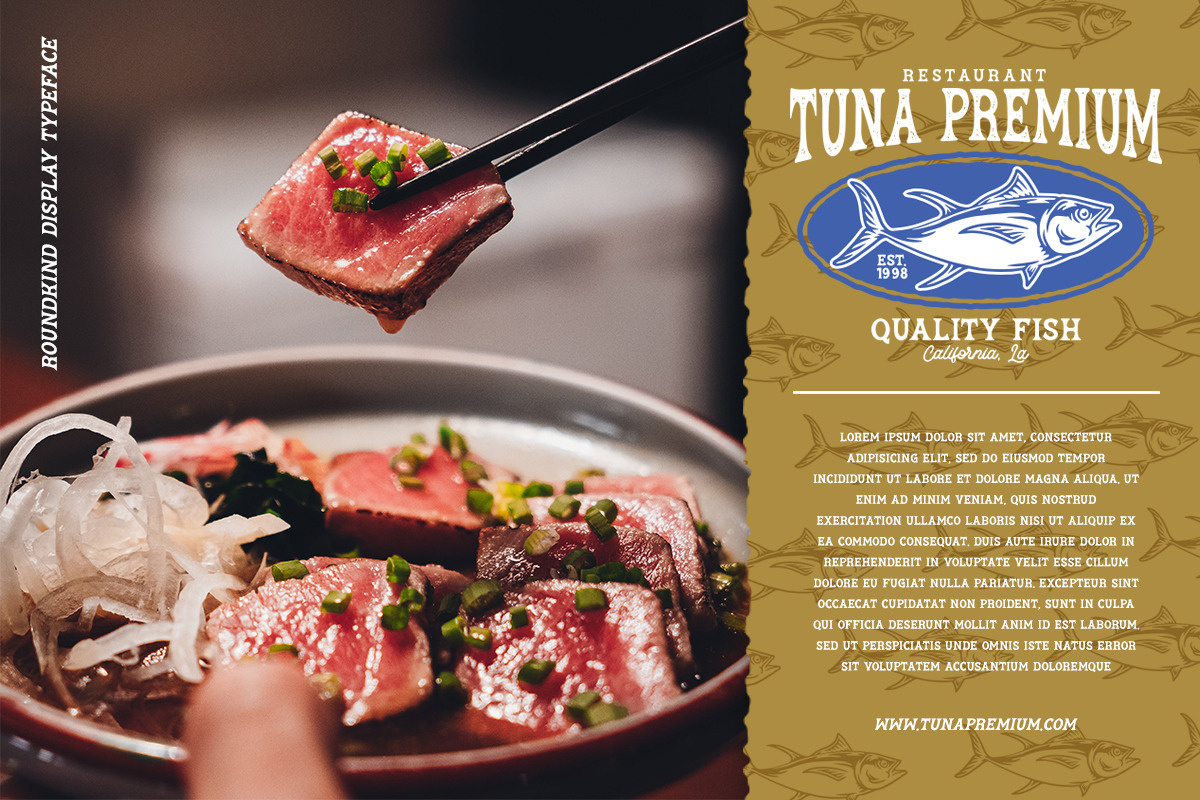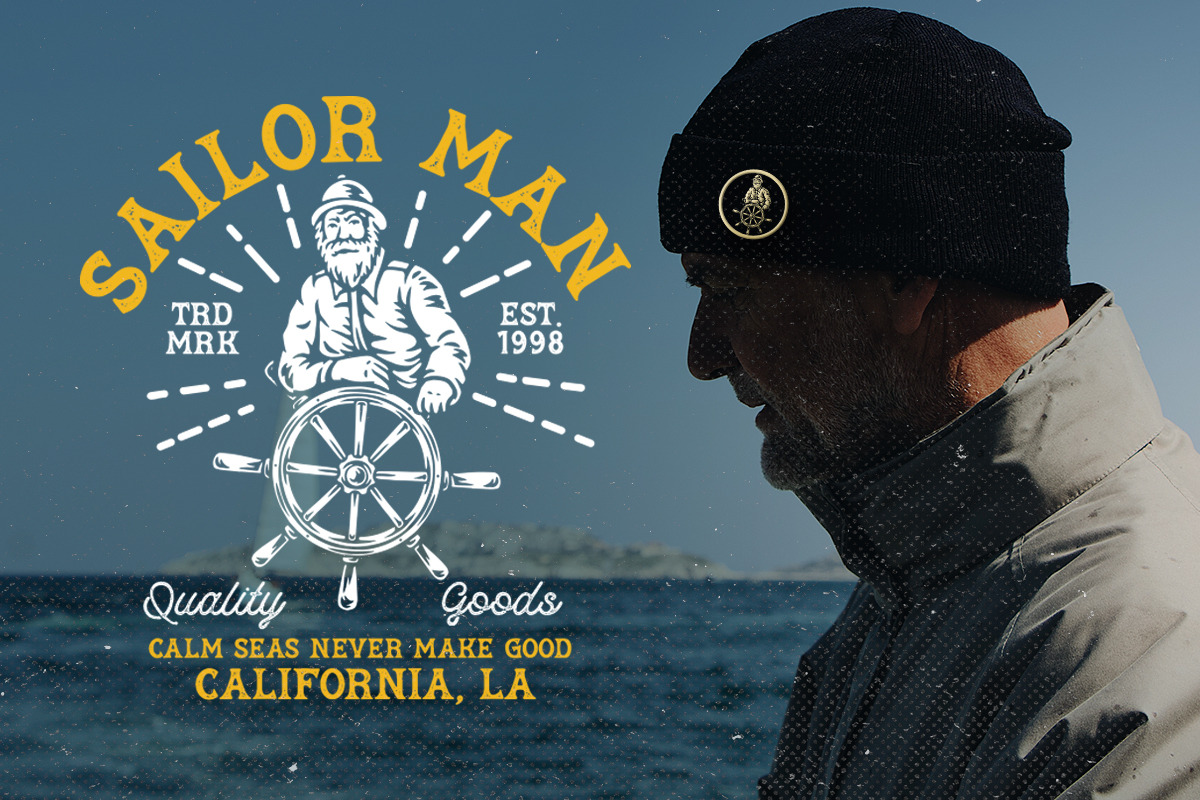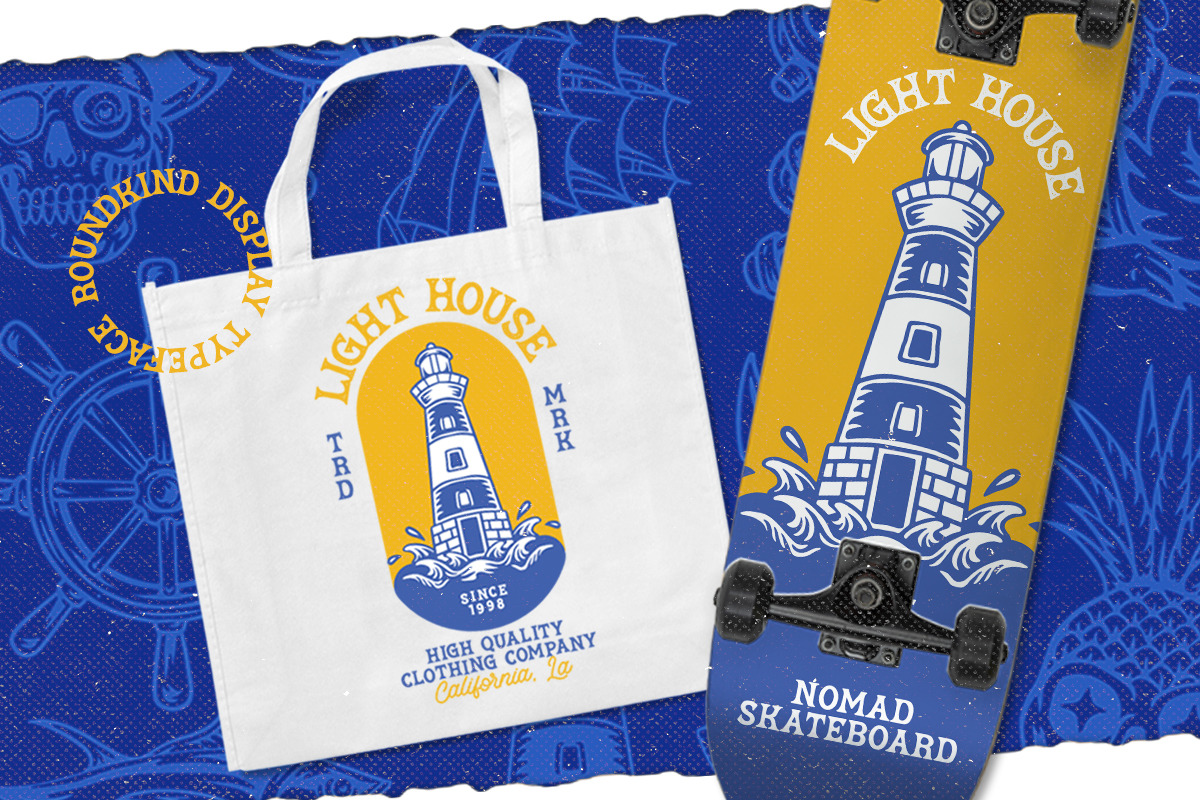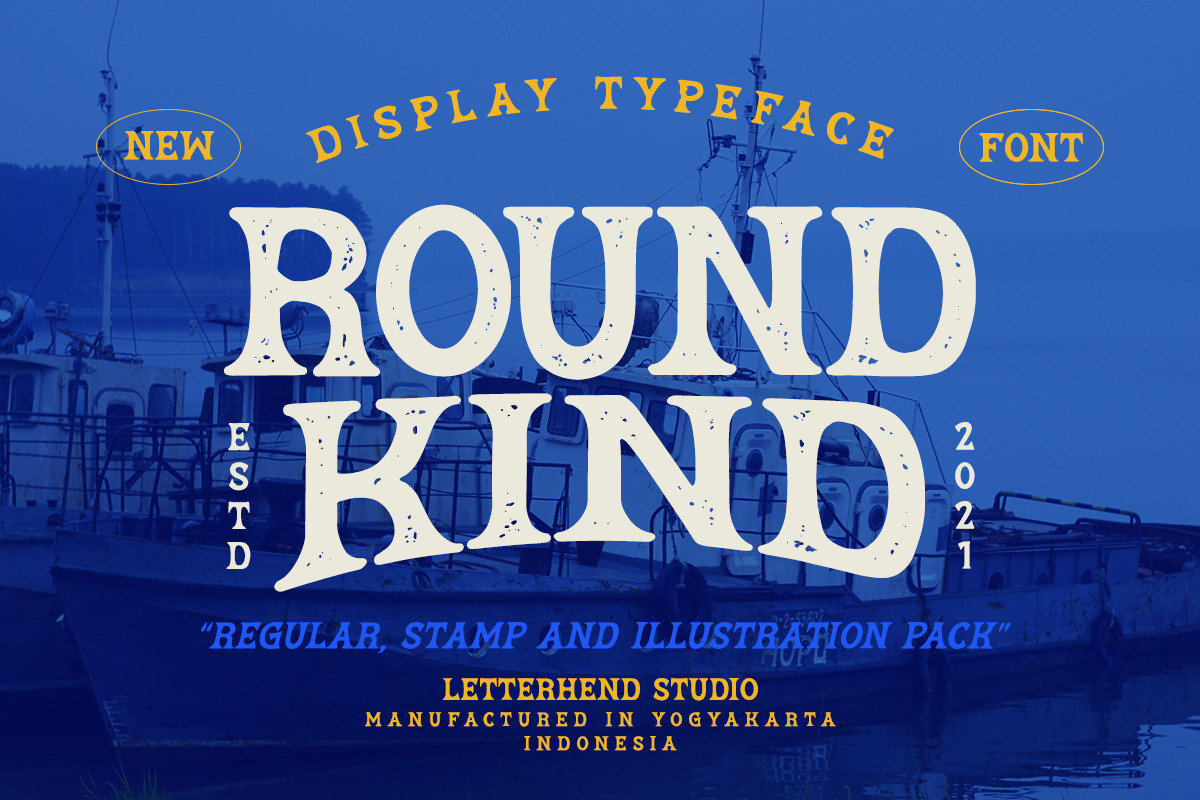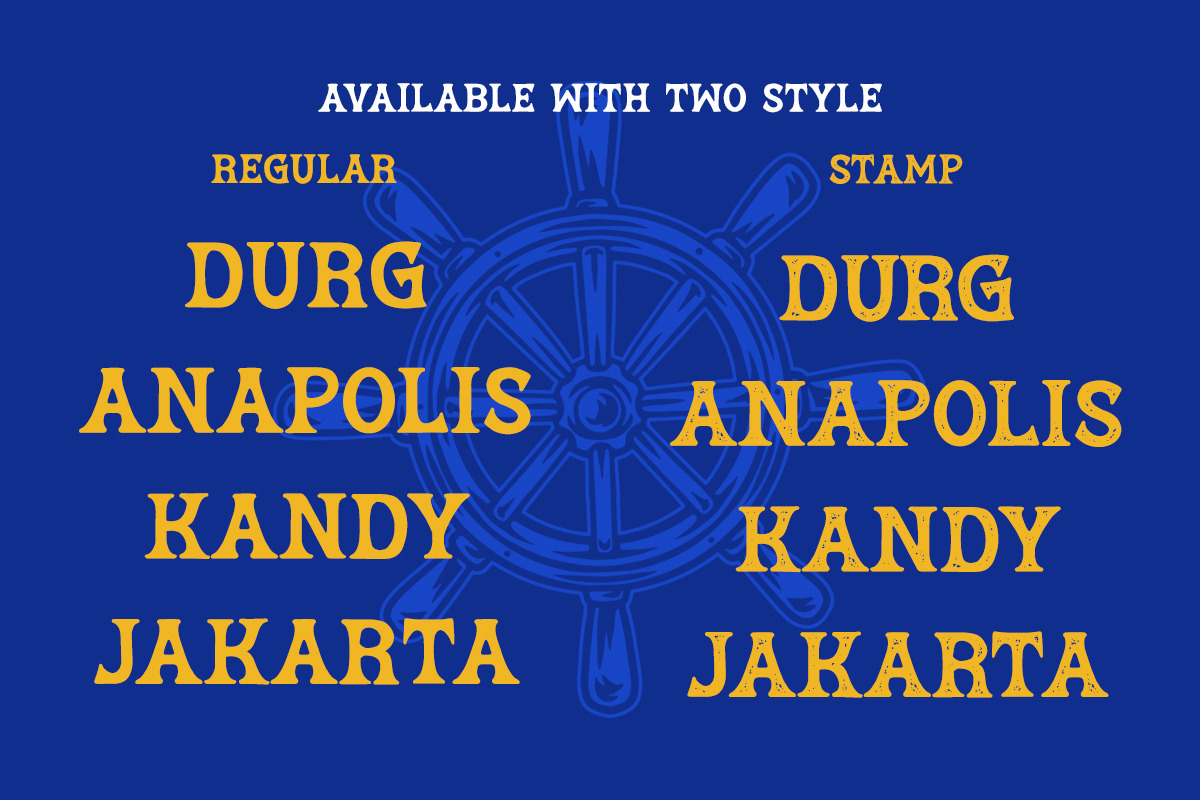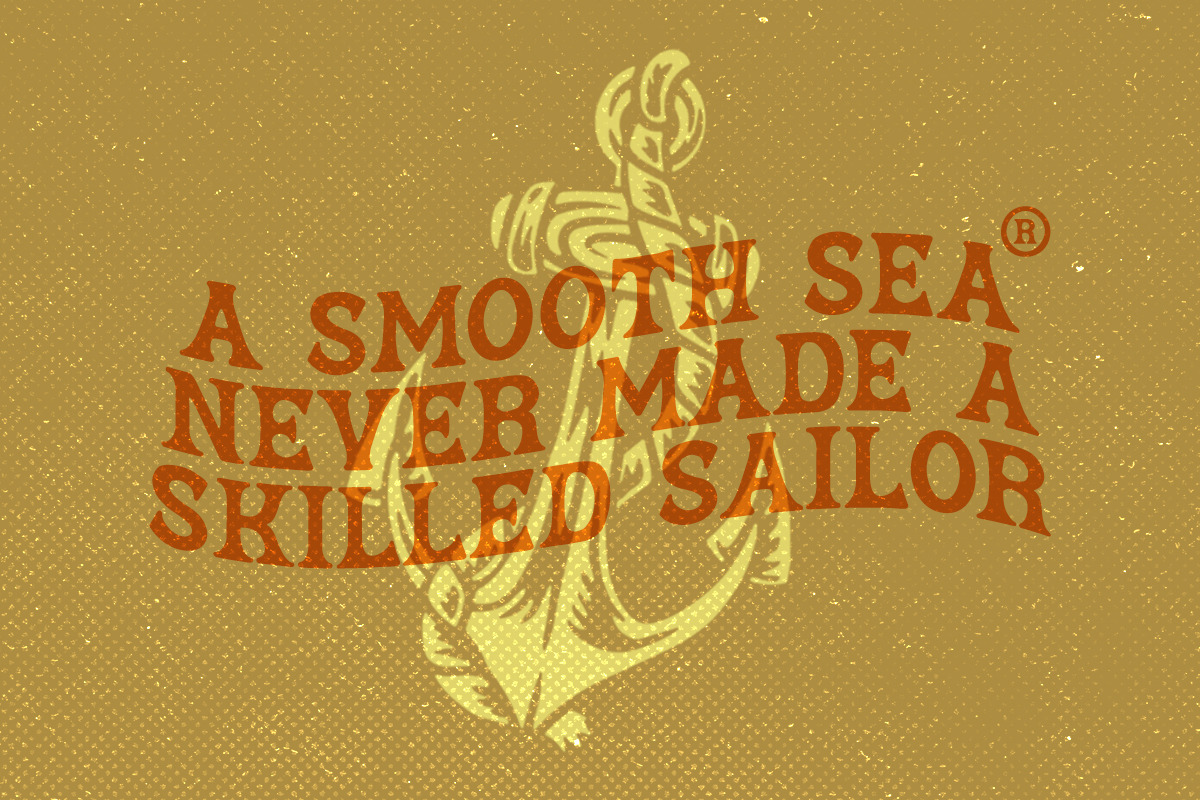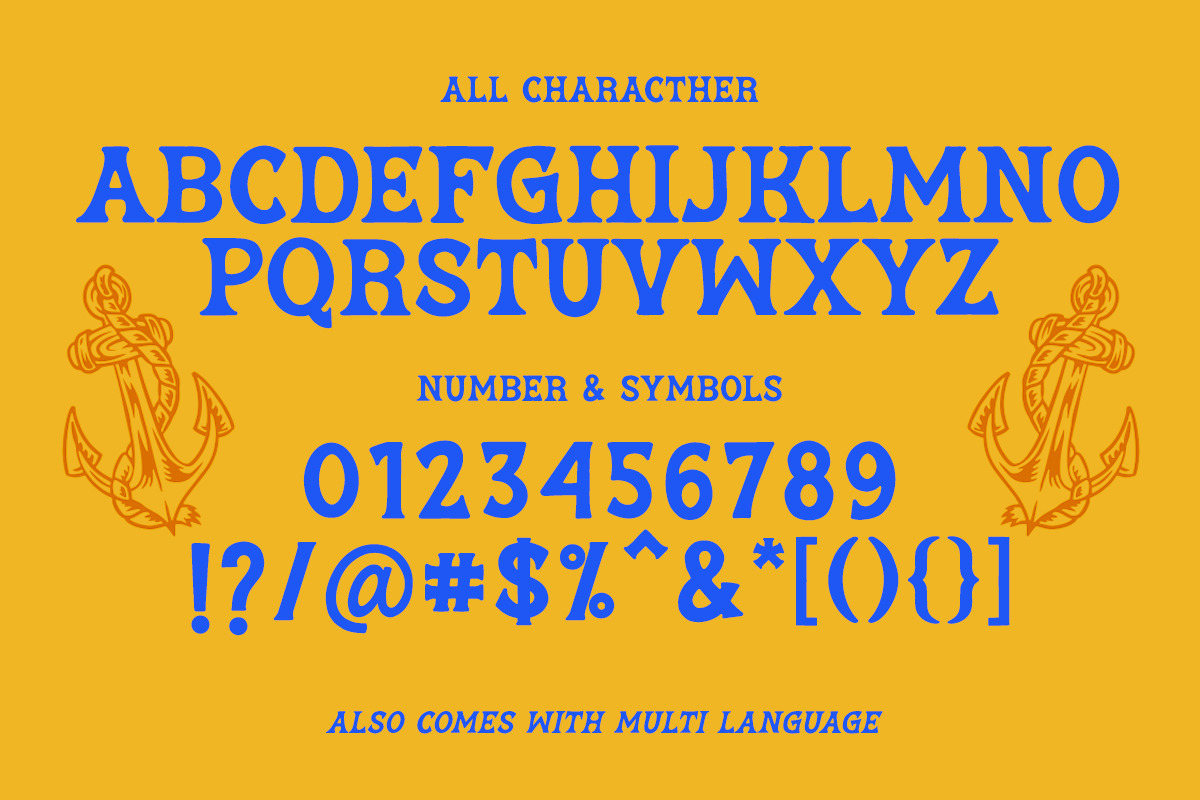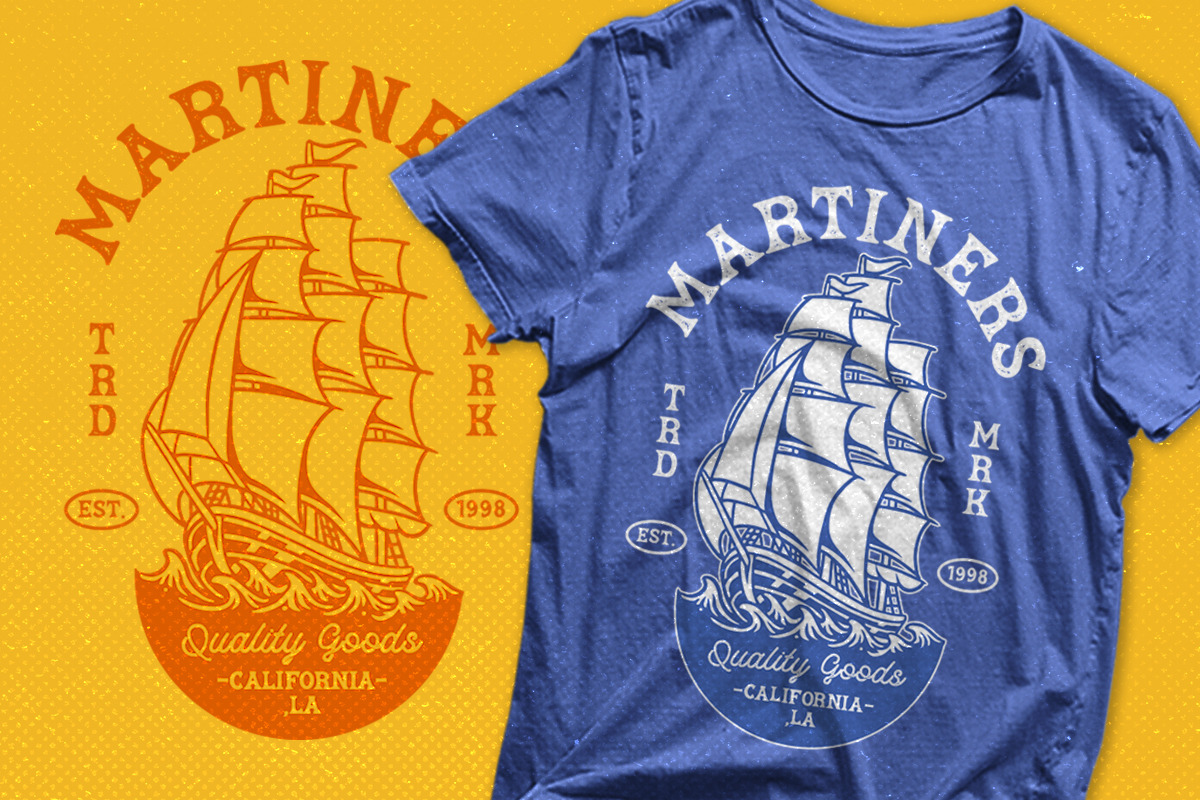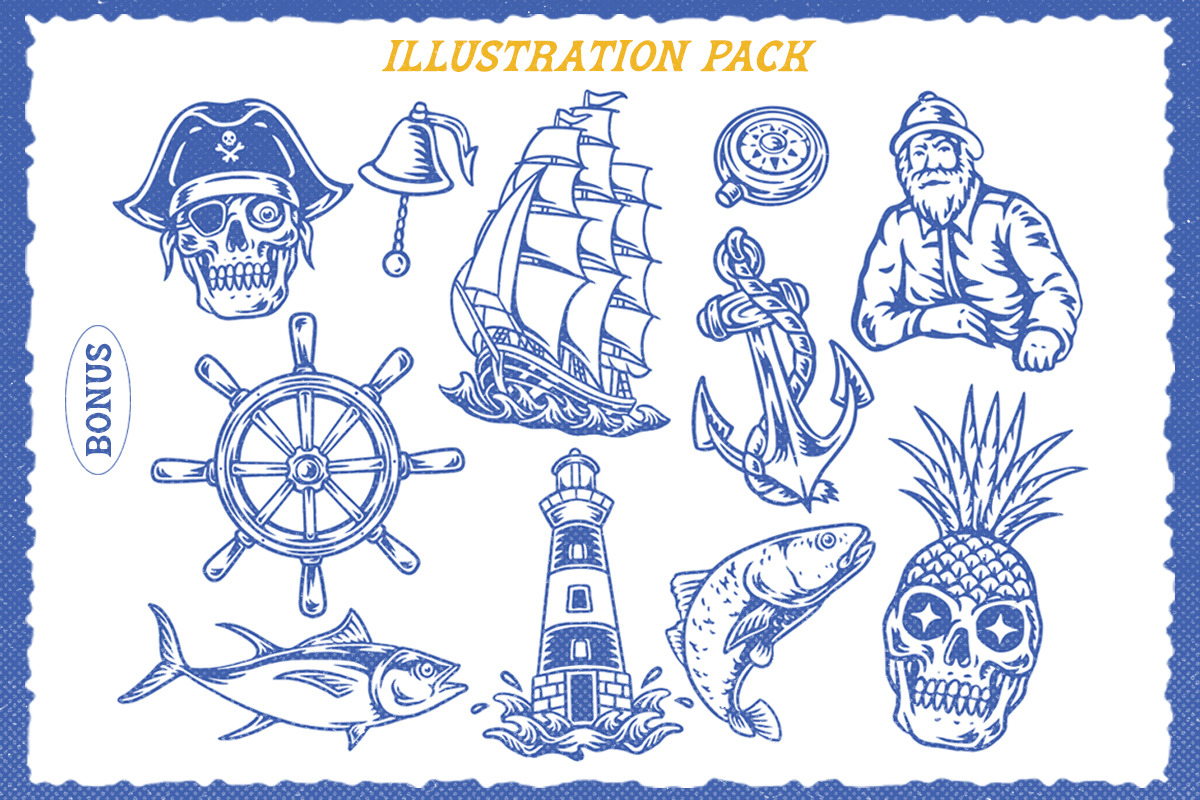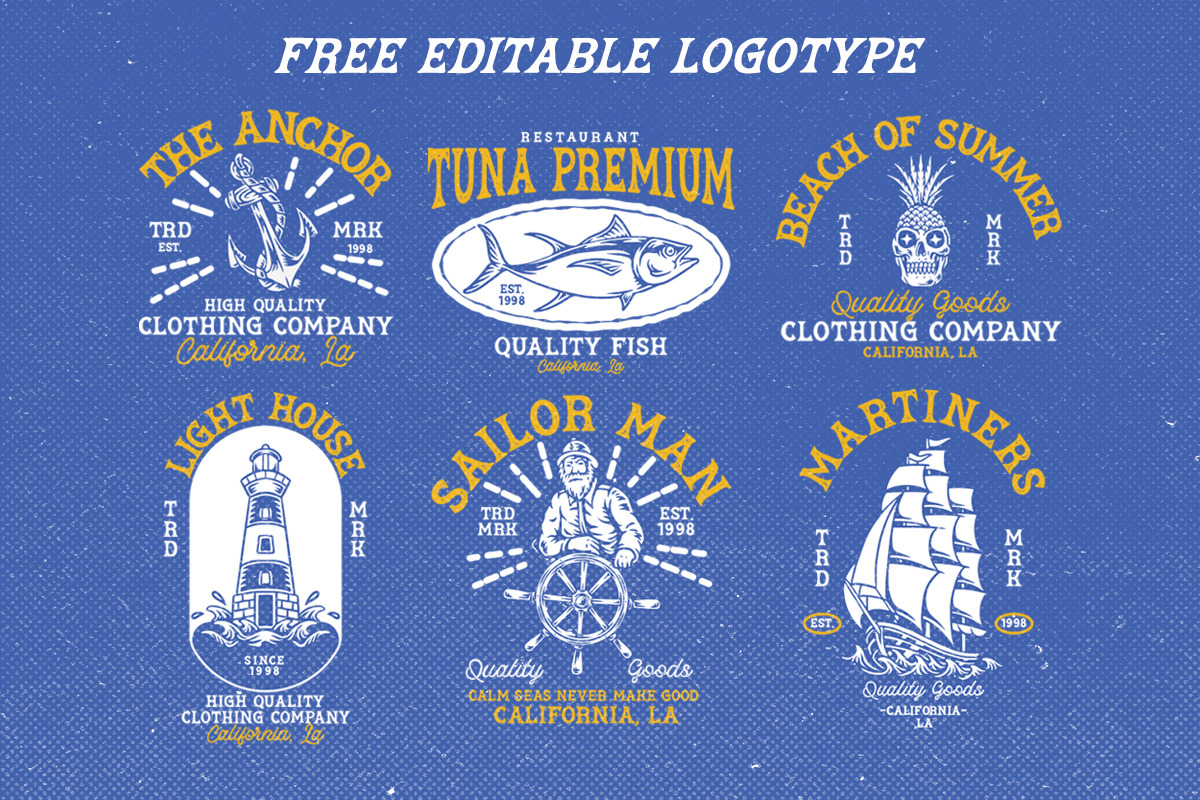
Round Kind - Display Typeface
Round Kind is a vintage display typeface with the touch of nostalgic feel yet still looks luxury in a modern design concept. This typeface has unique looks and strong character with illustration pack as bonus. This font perfectly made to be applied especially in logo, and the other various formal forms such as invitations, labels, magazines, books, greeting / wedding cards, packaging, fashion, make up, stationery, novels, labels or any type of advertising purpose.